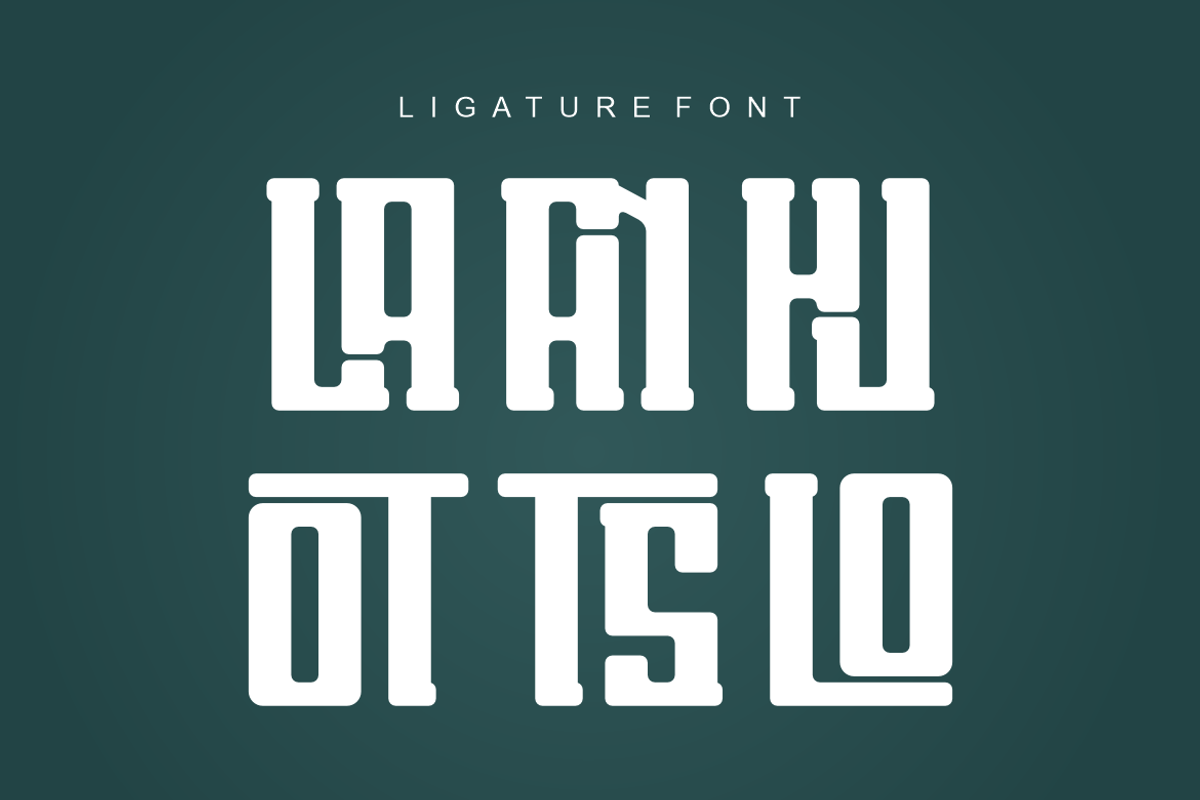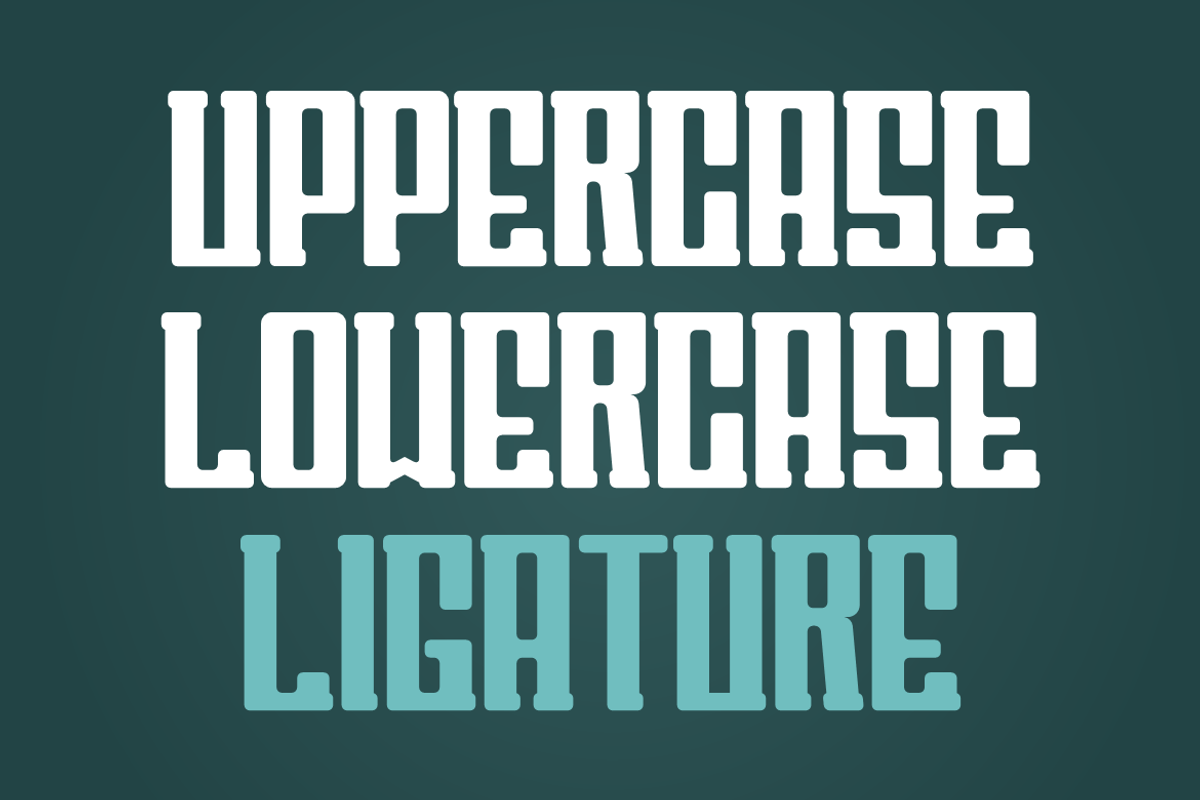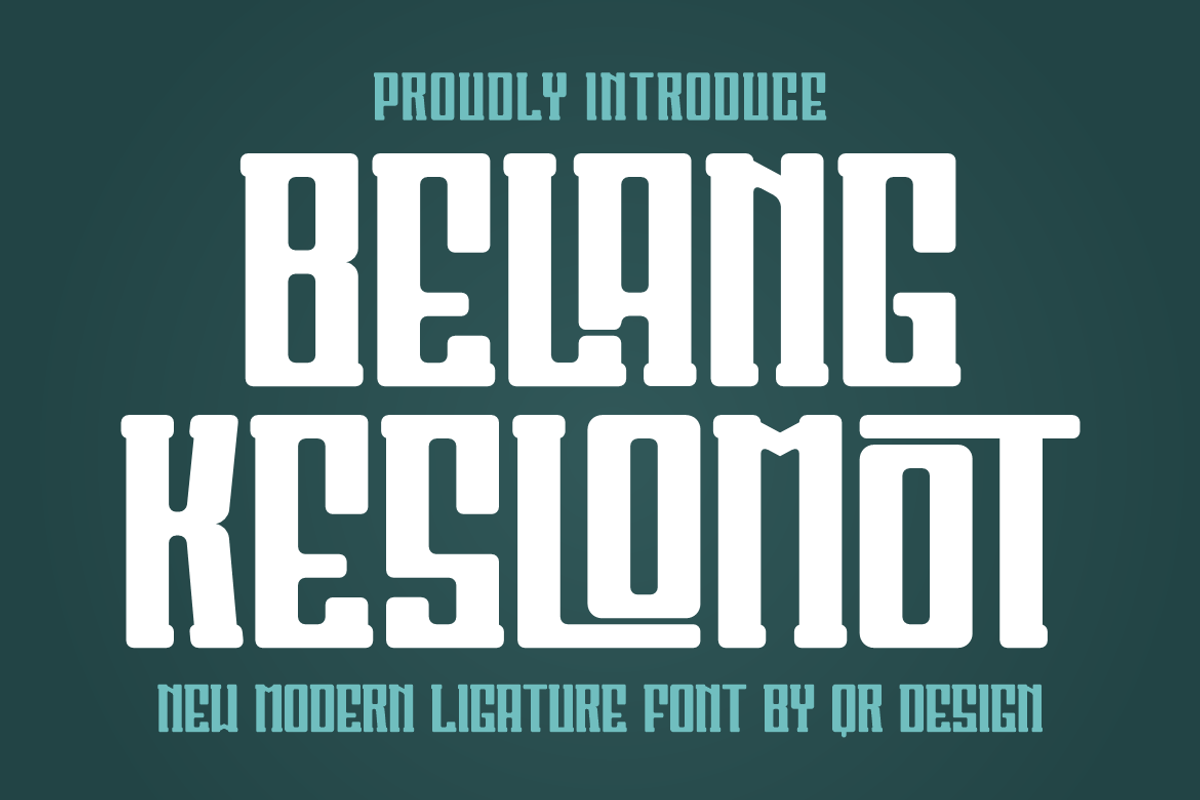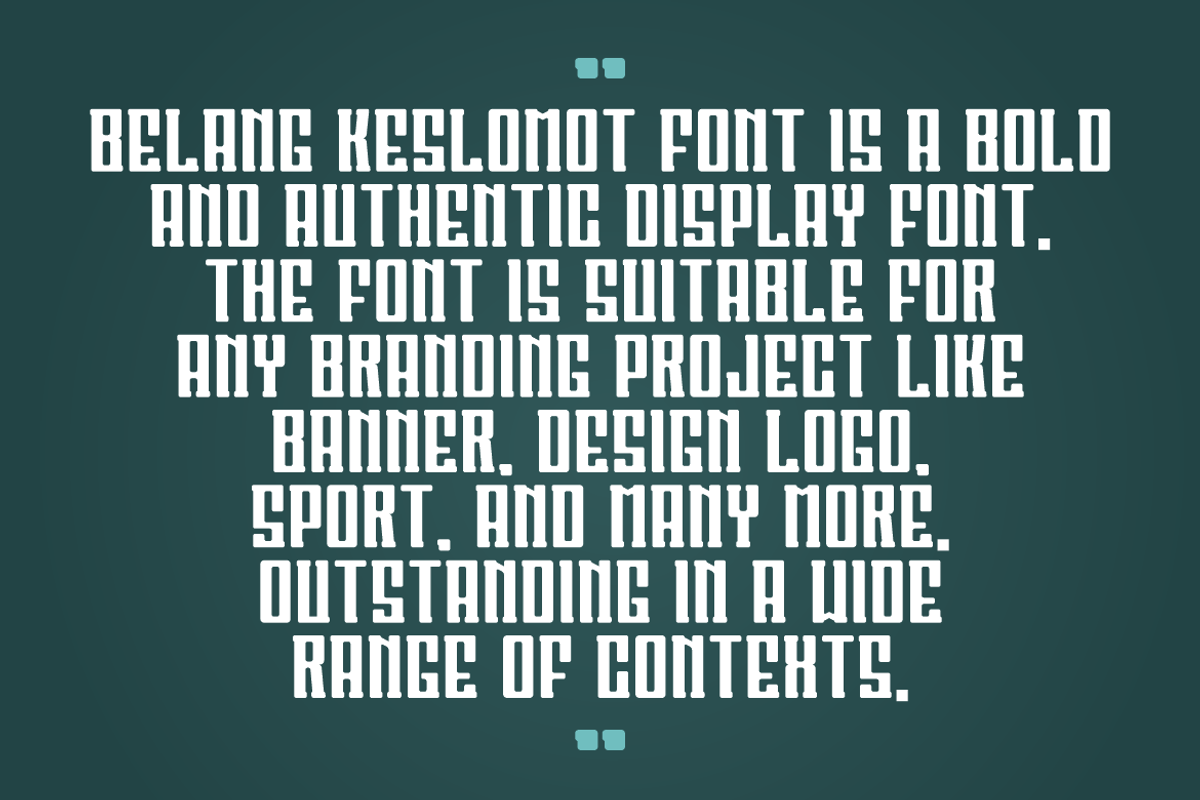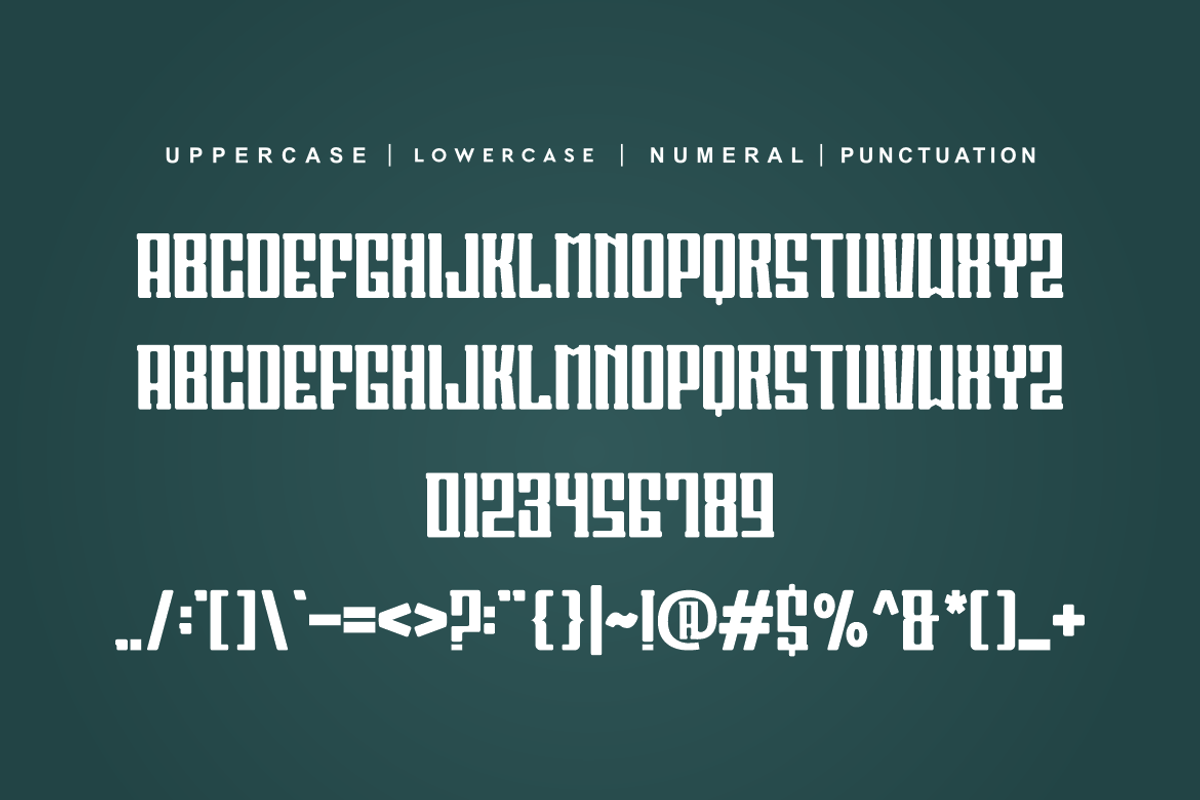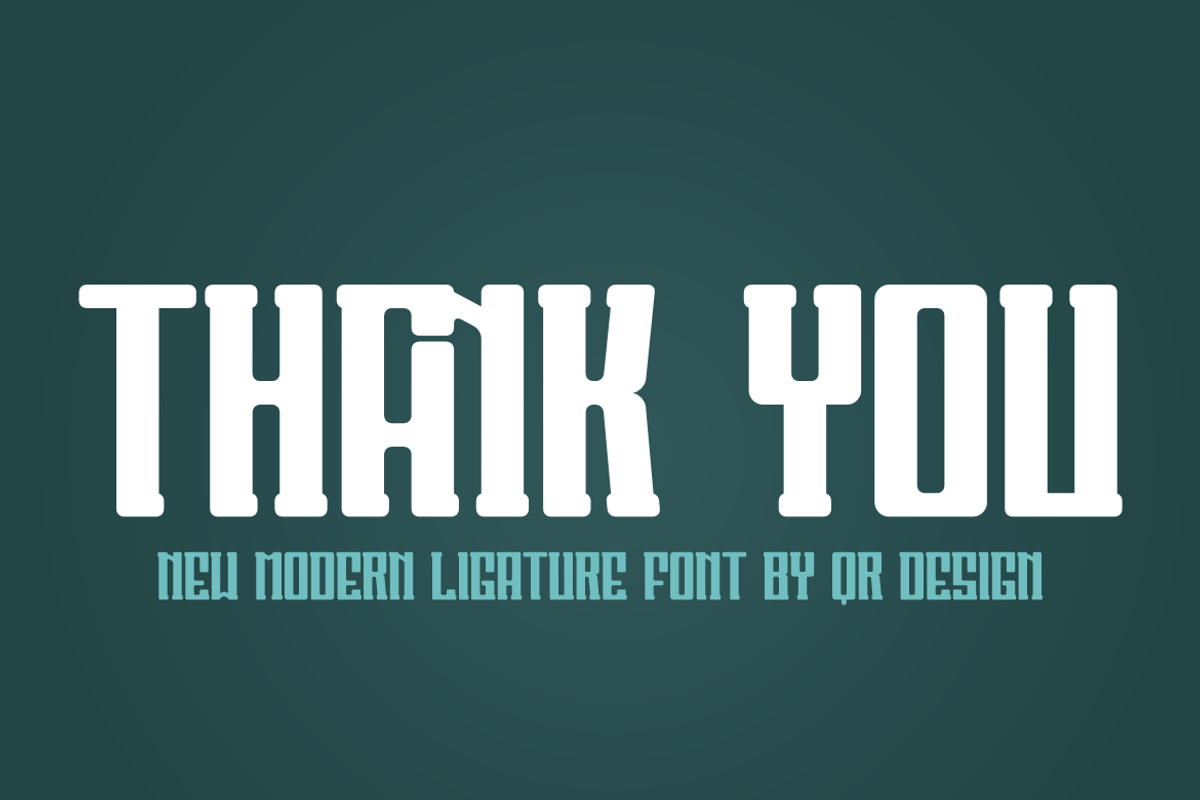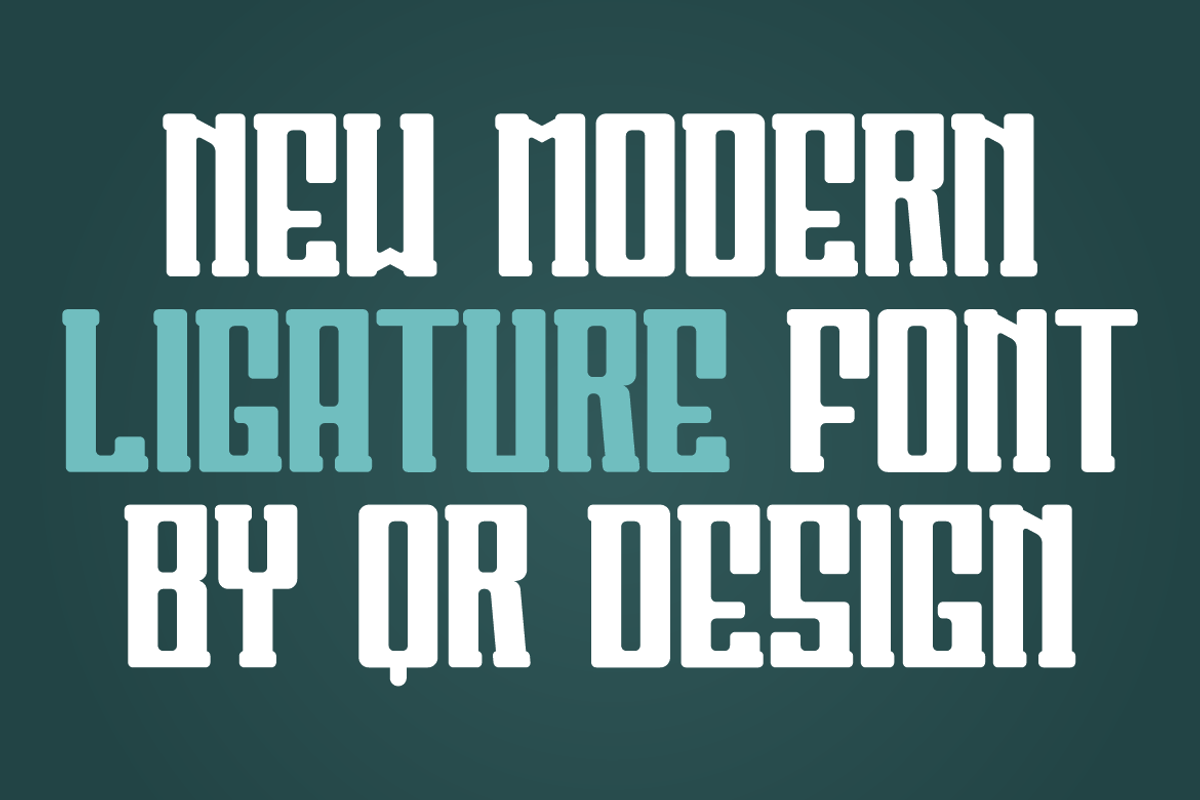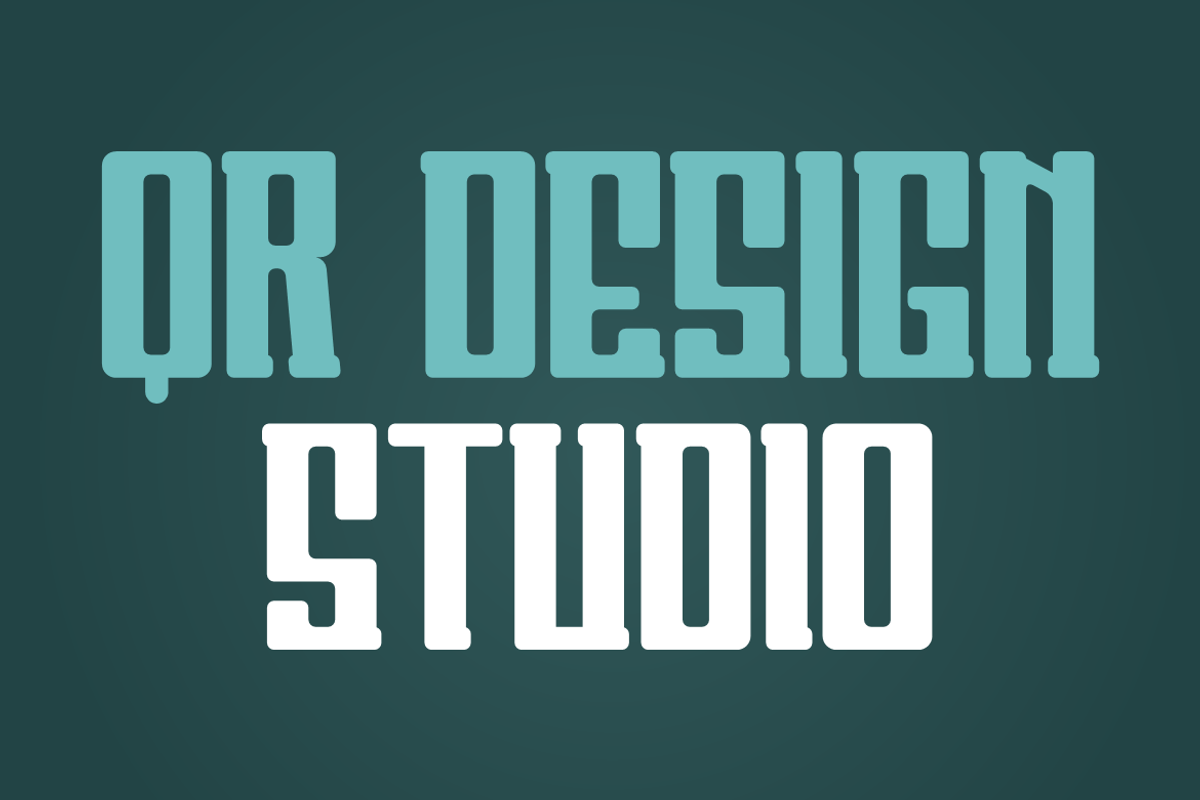
Belang Keslomot
Belang Keslomot Font is a bold and authentic display font. The font is suitable for any branding project like logo, sport, and many more. Outstanding in a wide range of contexts.